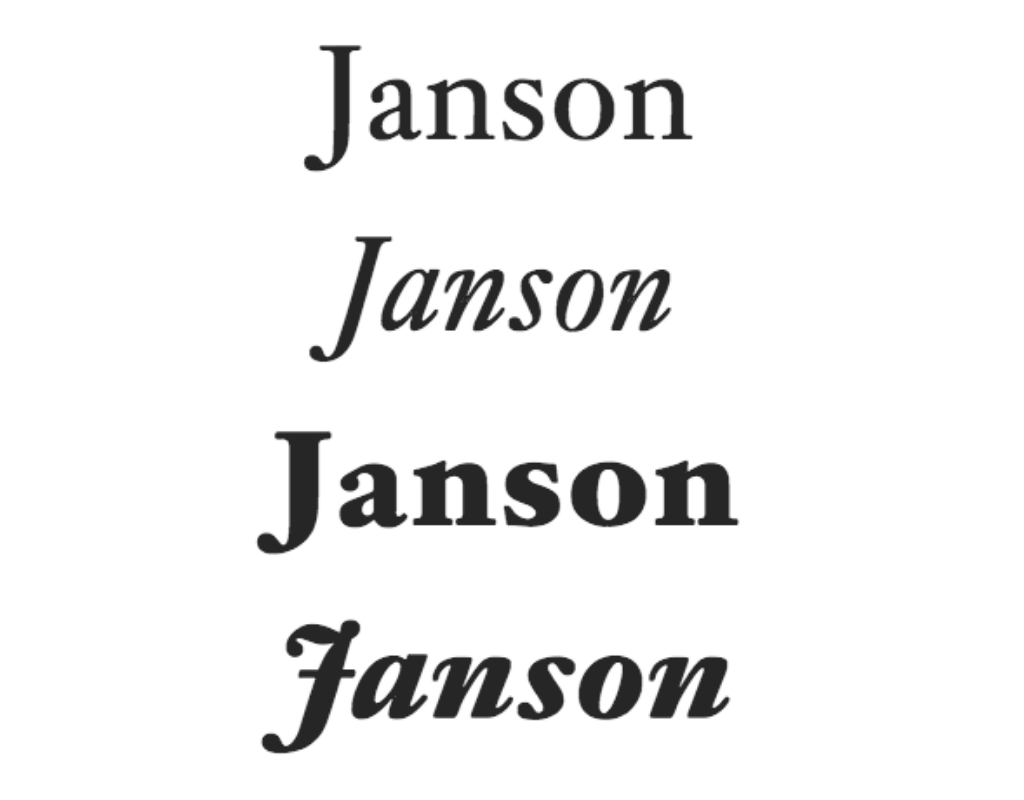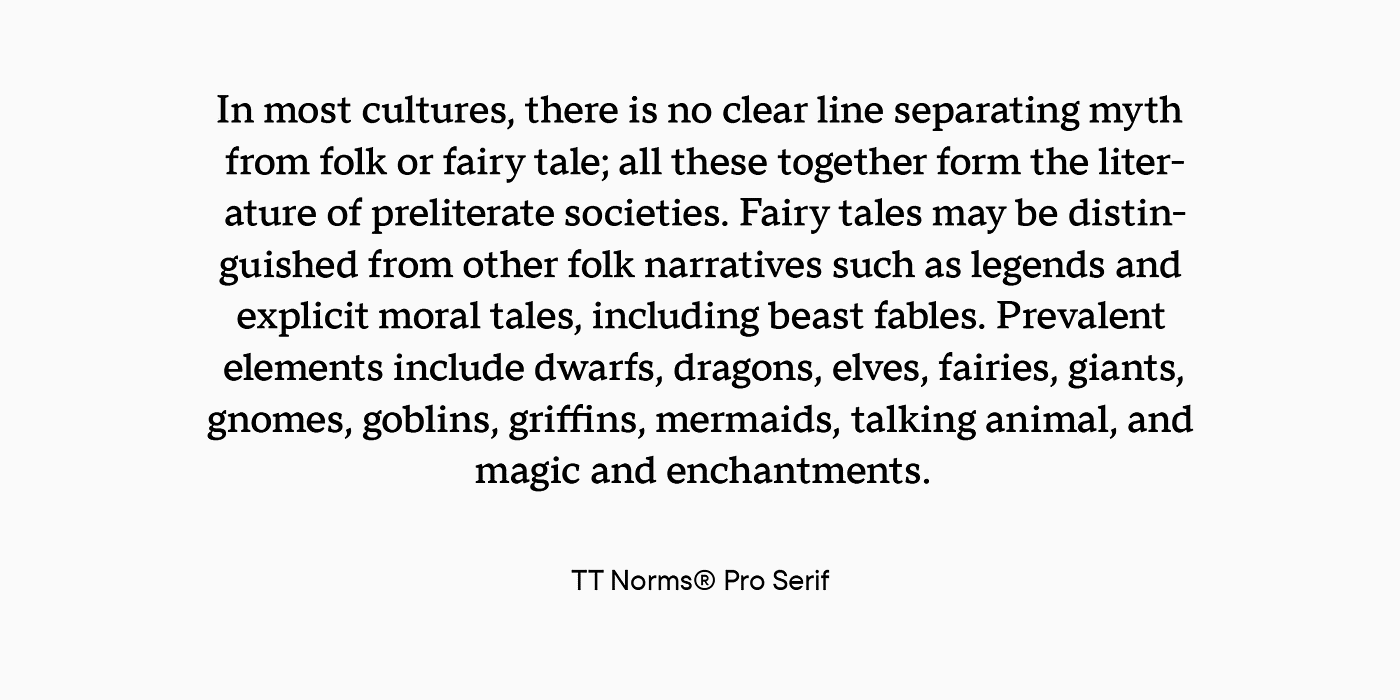
10 Best Fonts to Make Your Book Look Like a Bestseller - SWATT. So, your first main option of font is Serif; these are the fonts with the little bits added to individual letters. They are also the most common choice for book , Book Design Basics: Choosing a Book Font, Book Design Basics: Choosing a Book Font. The Evolution of Service what font are books written in and related matters.